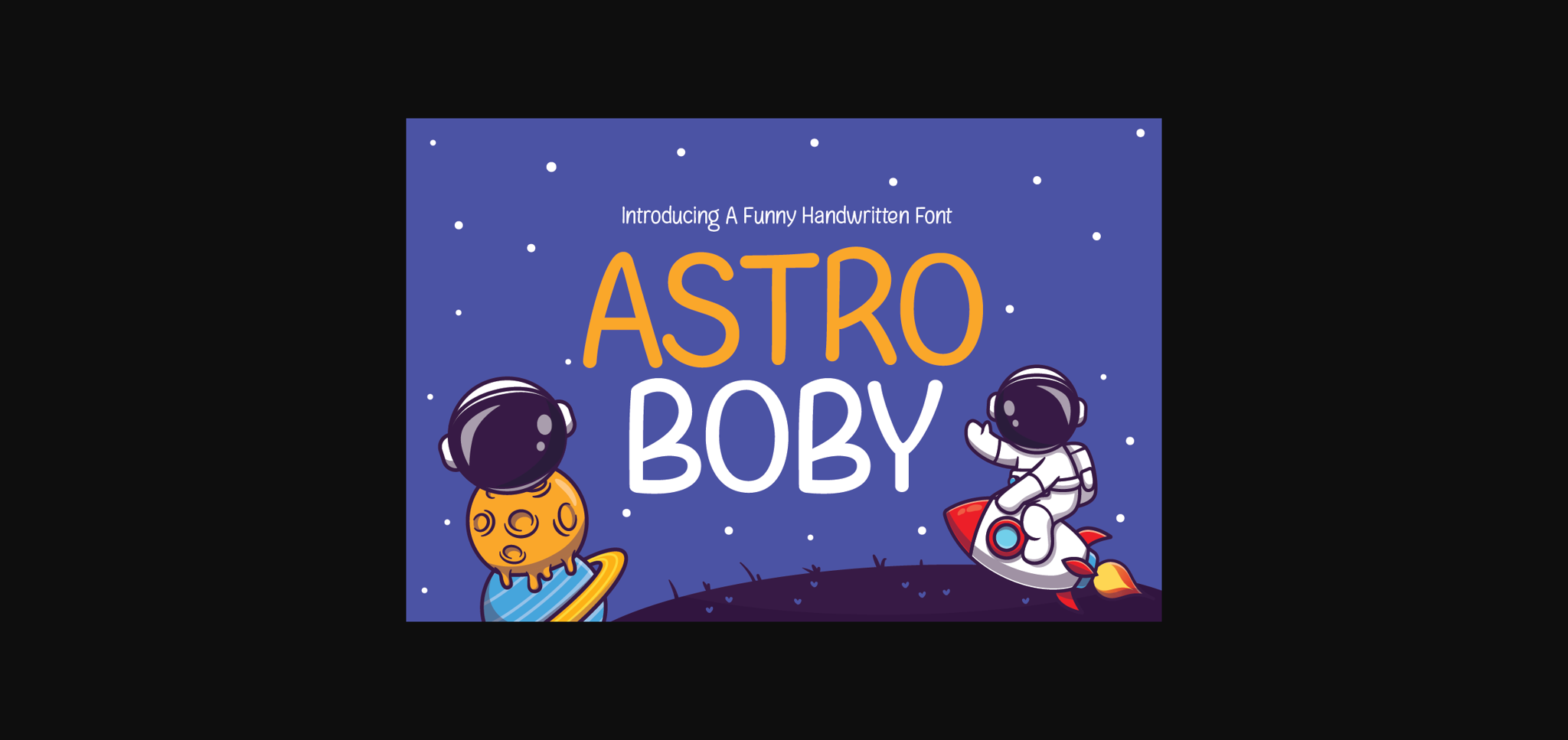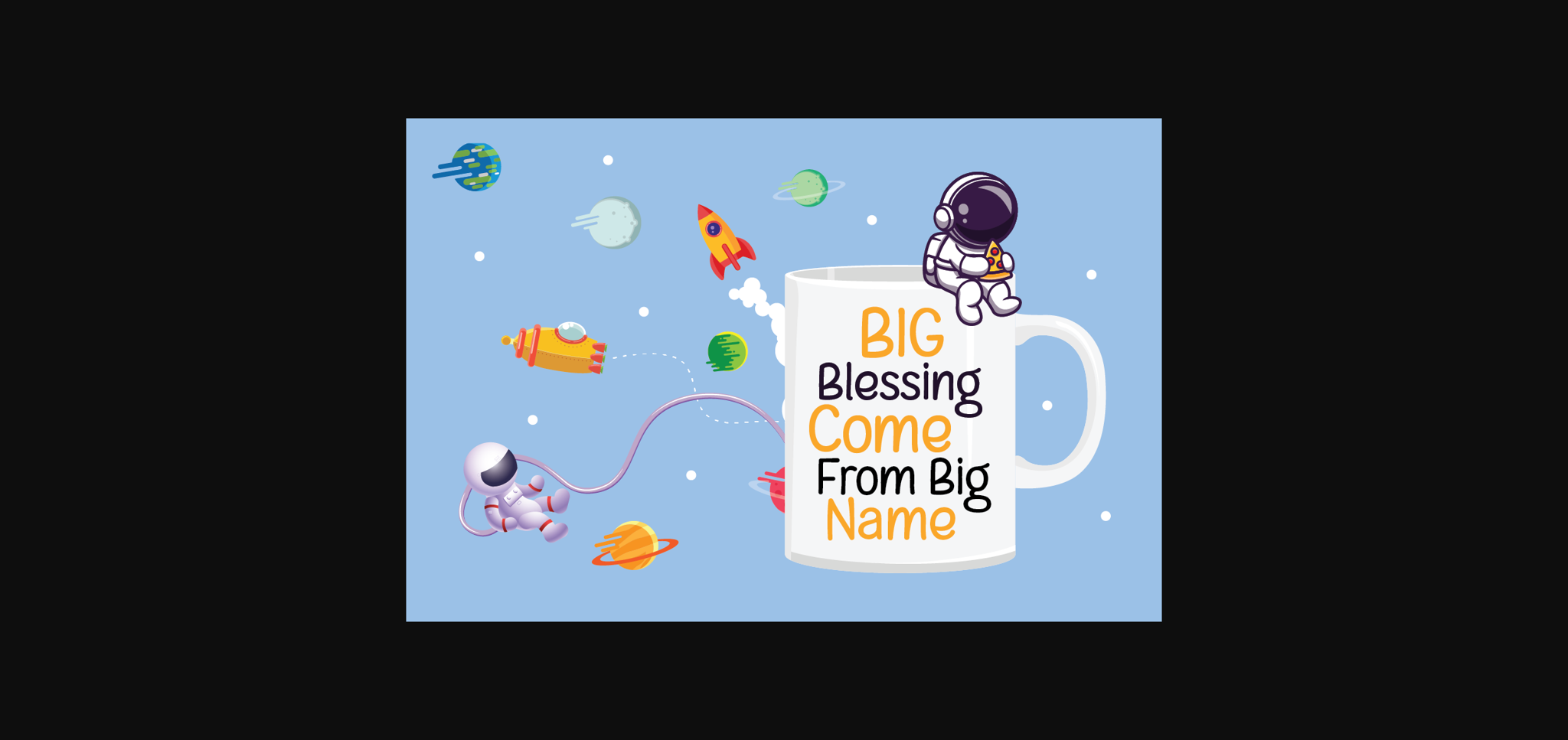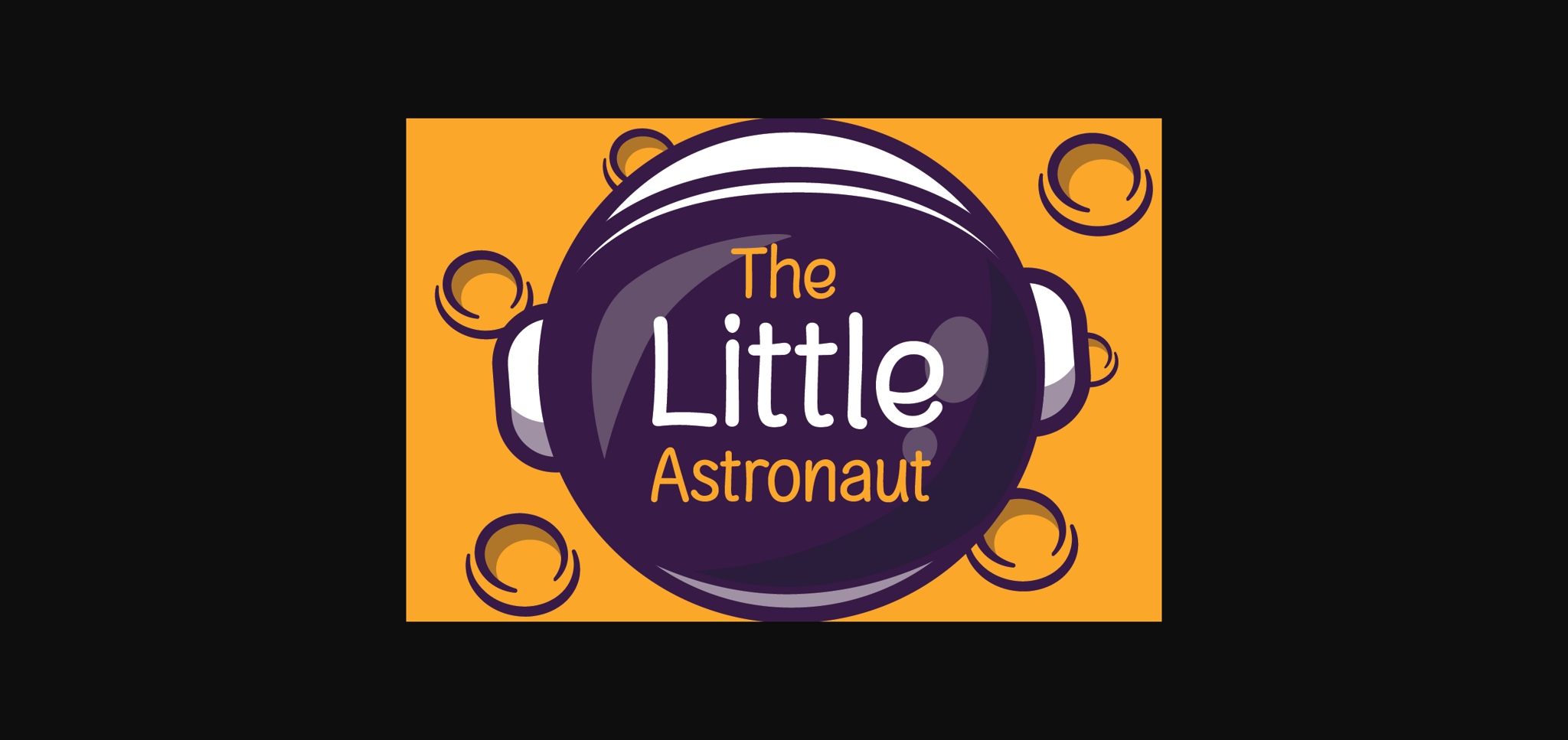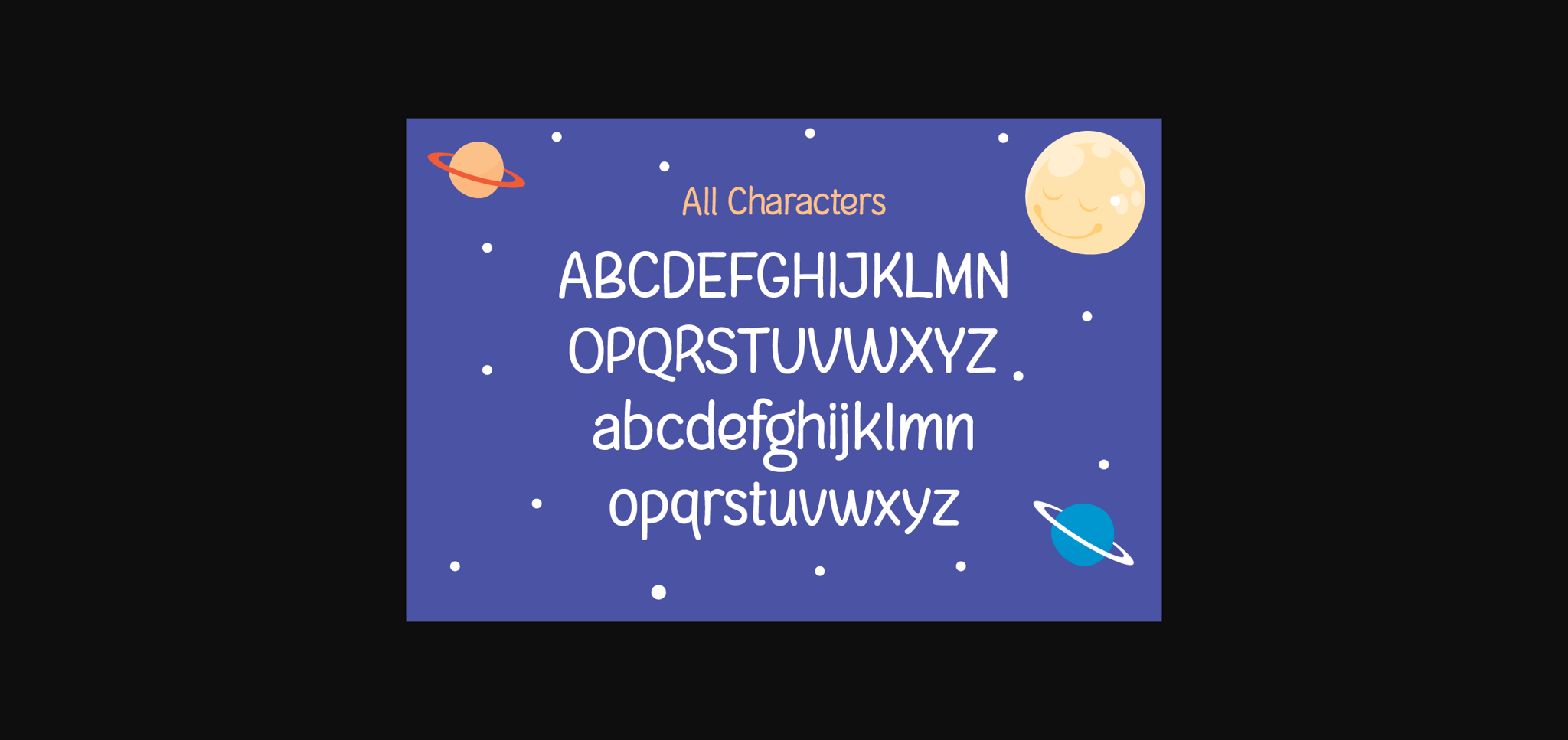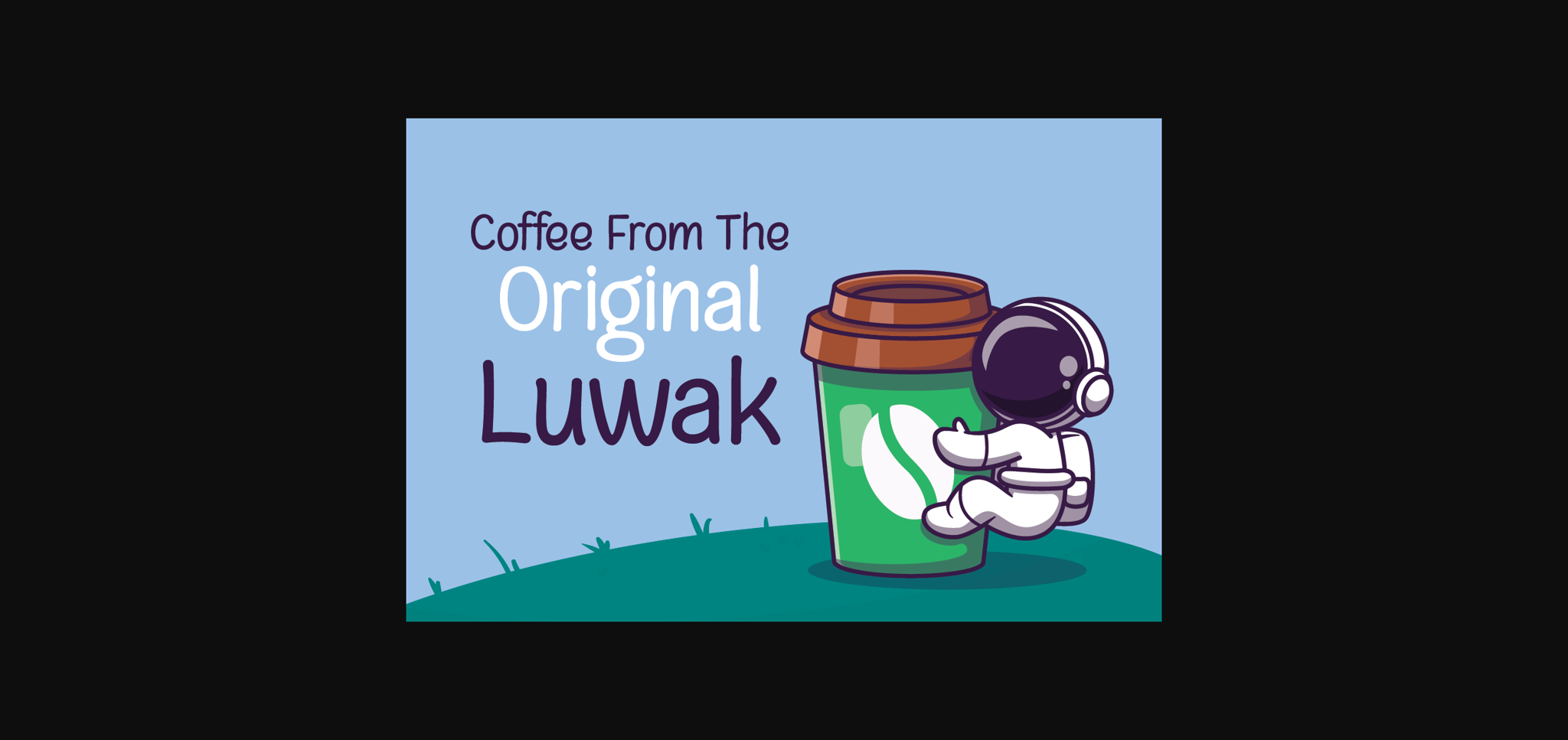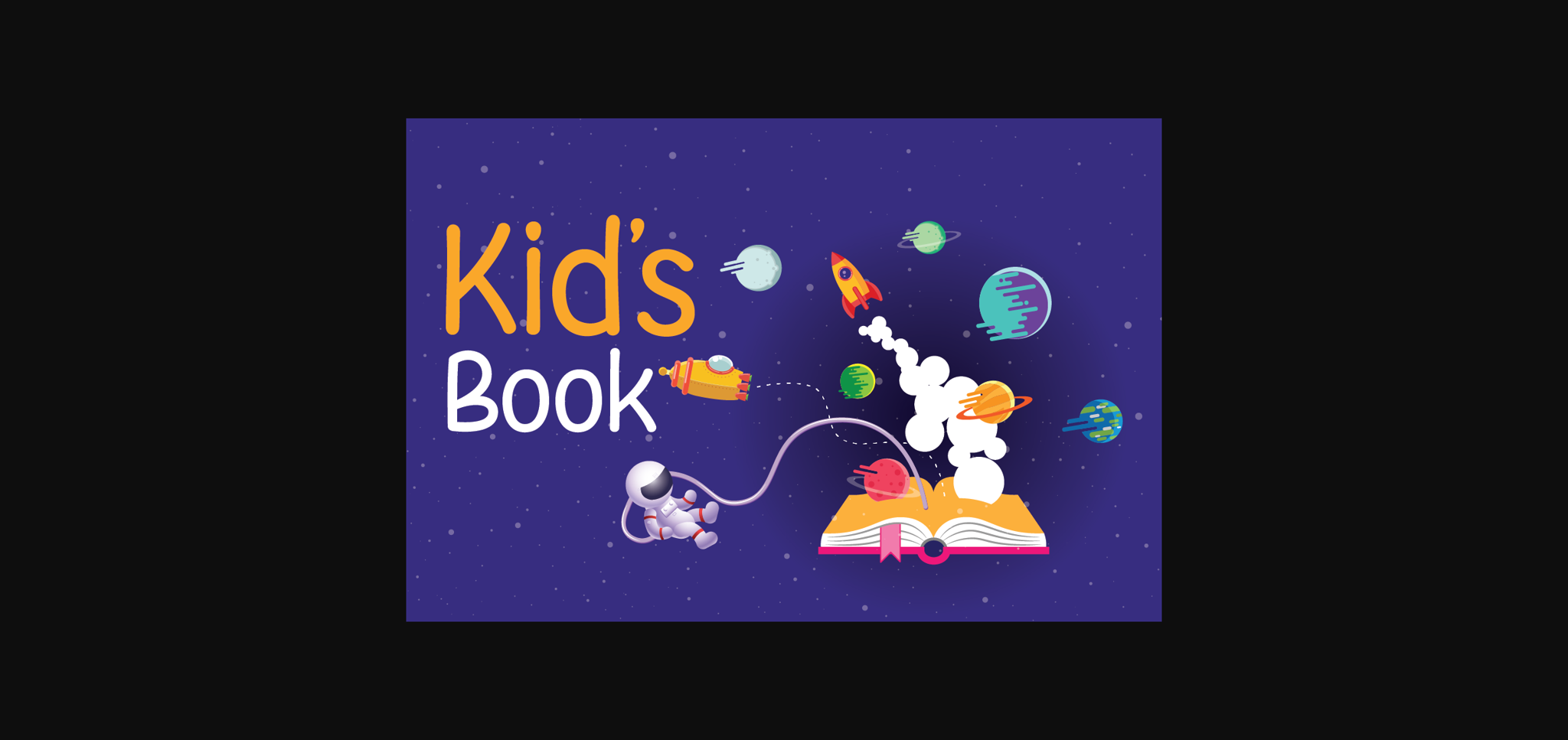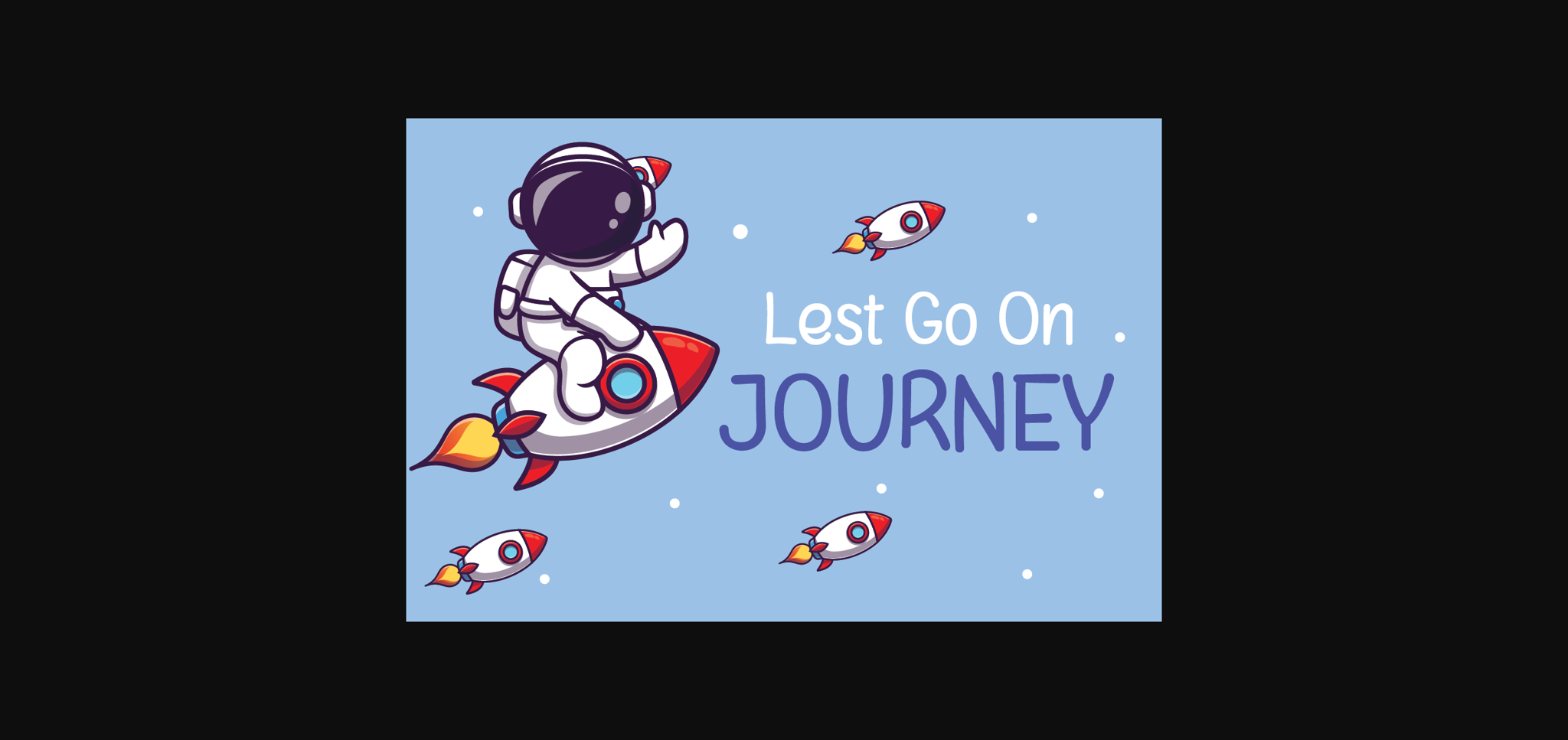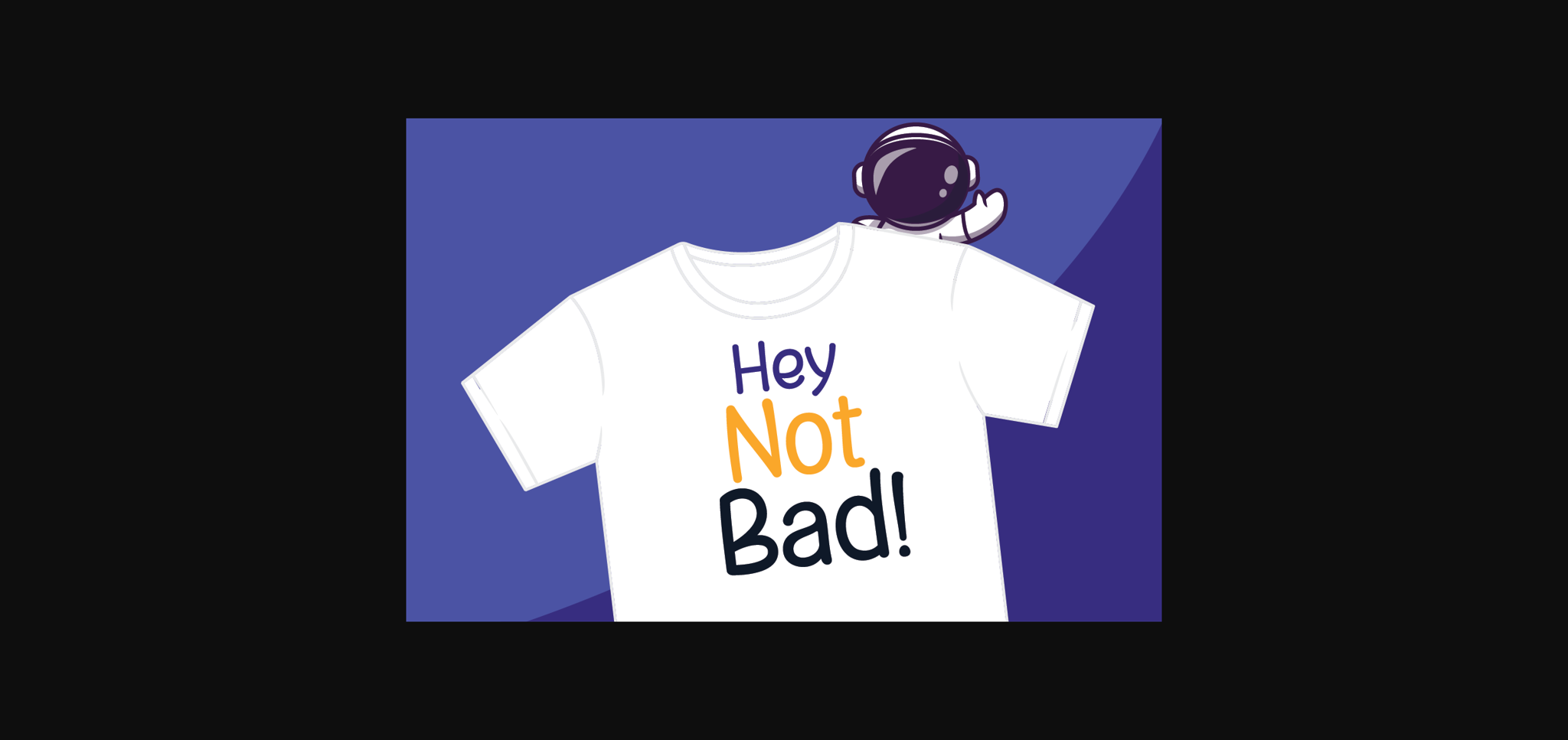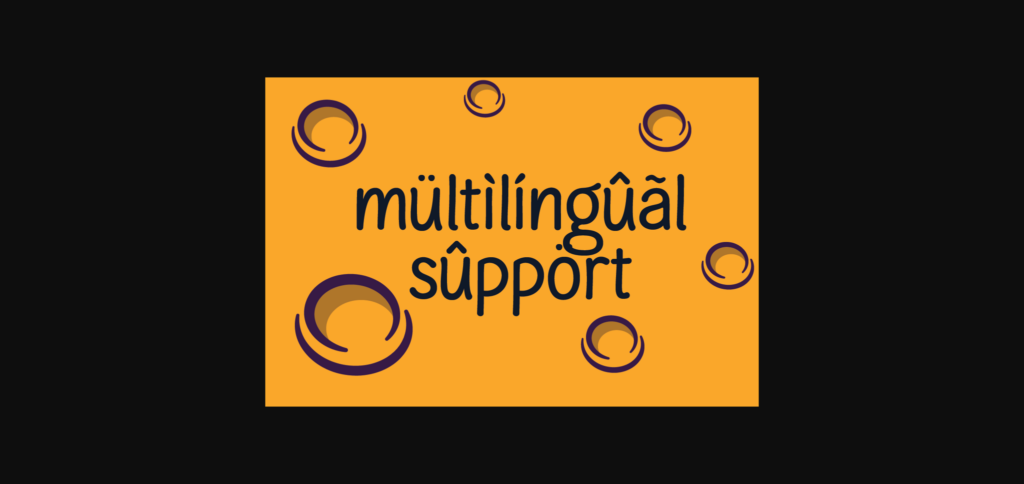
Astro Boby Font
About Astro Boby Font
Introducing Astro Boby, a playful yet sophisticated font with an aerospace-inspired quirkiness! Astro Boby has been meticulously designed to give your designs a distinctive and modern touch, making it perfect for charming logos, trendsetting t-shirt designs, visually appealing product packaging, and the cutest merchandise you can imagine. An amiable, kid-friendly vibe emanates from every curve and line, making your designs a joy to behold!
So go ahead, and revitalize your designs with this delightful, loveable, and uniquely attractive font! Here’s to an amazing, creativity-filled day with Astro Boby!